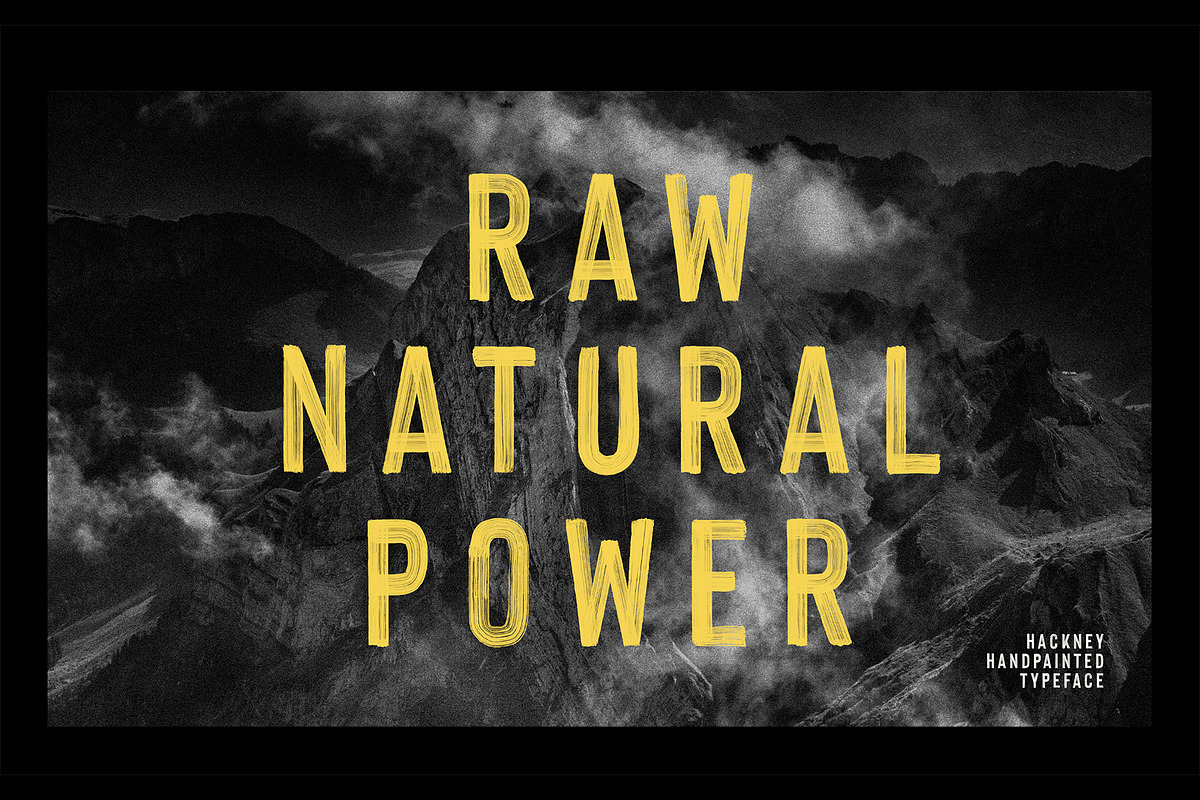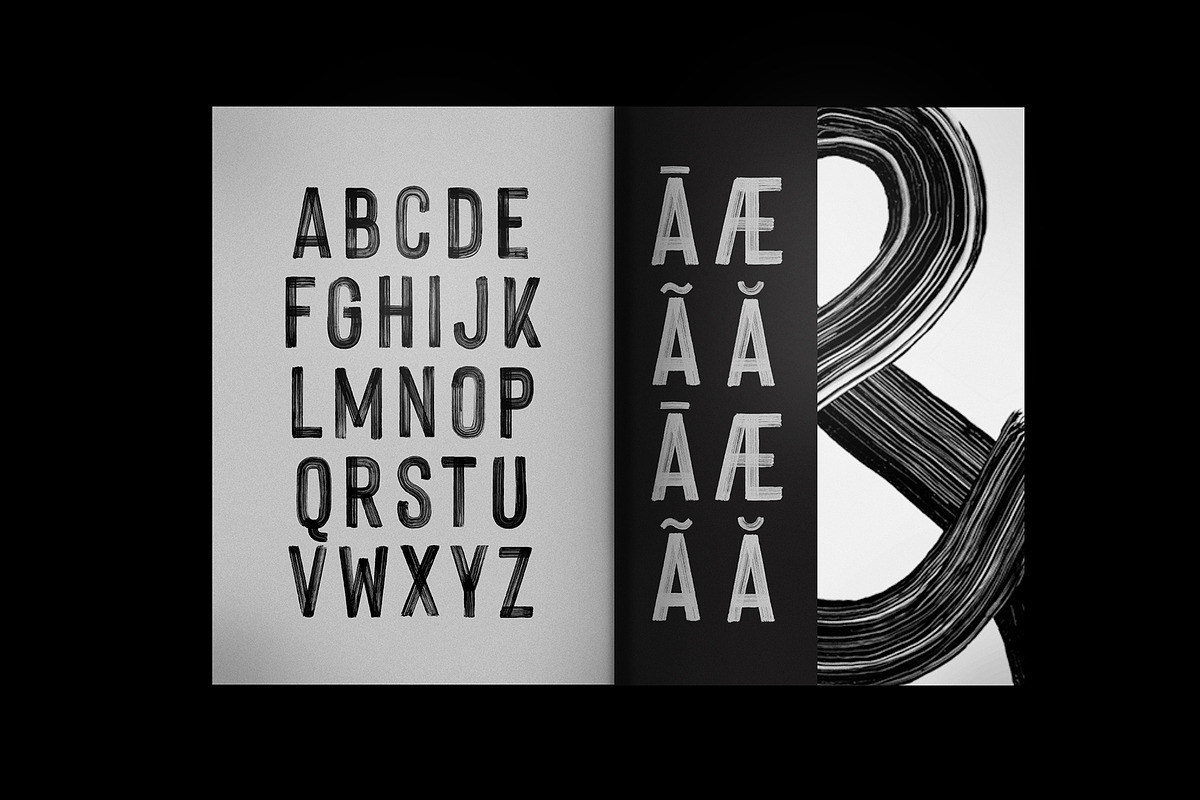
Hackney is entirely hand-painted sans serif. A raw, bold, condensed font, with brushy imperfections and an earthy realism. SVG fonts or colours fonts are a great new format, which makes it possible to add loads of detail and texture not possible before. Hackney SVG keeps all the incredible definition of the real painted strokes as a transparent texture, so it gives you a proper hand-painted effect, without you having to do anything (or go near paint). SVG fonts work just like normal fonts, but allow so much more customisation and look hyper-real. They can be used in any colour and on any background.
Hackney is an all caps font, with two alternatives for every letter, to maintain the custom made look, without obvious doubles. It includes ALL European language support.
Hackney Font collection is designed to be an incredibly accessible hand painted font.